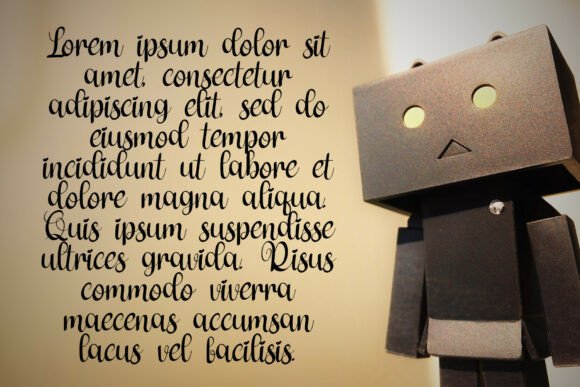
Introduction to Flood Font
As you sit at your desk, surrounded by scattered papers and design software open on your screen, you finally land on the perfect idea for your creative project. But, what’s missing is that perfect font to bring it all together. That’s where the Flood Font comes in – a unique and elegant design resource that can elevate your work to the next level.
With its professional hand touch, this font is the perfect addition to any project, whether it’s a wedding invitation, a birthday card, or a school assignment. The Flood Font is not only visually stunning, but it’s also incredibly versatile, allowing you to apply it to your creative ideas with ease.
As a designer, you know the importance of having high-quality design resources at your fingertips. The Flood Font is a valuable asset to any design arsenal, and with its transparent background and accessible glyphs, you can use it without any additional applications.
Flood Font
- High-quality, unique font design suitable for creative projects
- Transparent background and customizable design options
- Large character set with extended Latin support for international language use
- Perfect design resource for graphic designers, digital artists, and web developers
Honest Review: Flood Font
I recently stumbled upon the Flood Font and I must say, it’s a great addition to my design toolbox. As a designer, I’m always on the lookout for high-quality fonts that can elevate my creative projects.
- ✨ High-quality design: The Flood Font has a sleek and modern design that’s perfect for a variety of creative projects.
- ✨ Transparent background: This feature makes it easy to use the font on a variety of backgrounds without any hassle.
- ⚠️ Limited customization options: While the font is high-quality, it’s a bit limited in terms of customization options.
- ⚠️ Not ideal for complex designs: Due to its simple design, the Flood Font may not be the best choice for complex or intricate designs.
Overall, I’m impressed with the Flood Font and I would definitely recommend it to designers who are looking for a high-quality font for their creative projects.
Tips for Getting the Most Out of Flood Font
Use Flood Font on a transparent background to create a striking design. Experiment with different font sizes and styles to add depth to your design. You can also combine Flood Font with other design elements to create a unique look.
Flood Font is ideal for use in social media graphics, flyers, posters, and business cards. It’s also perfect for creating eye-catching headings and titles in your designs.